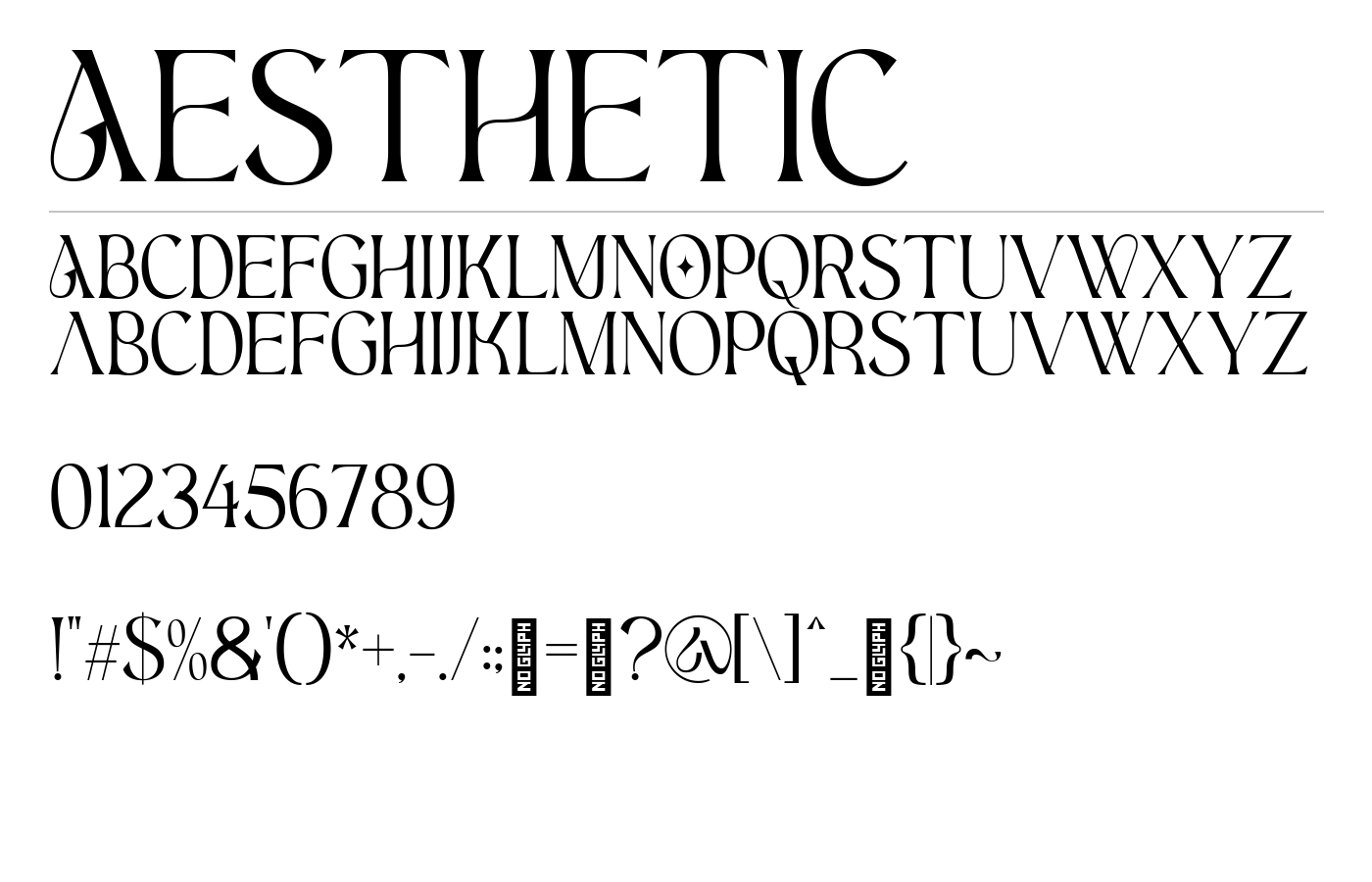
Aesthetic Font is a high-contrast serif typeface with elegant, thin serifs and a refined, modern look. Its narrow letterforms and unique, artistic details like the stylized Q tail and decorative glyphs lend it a sophisticated and fashionable character, ideal for luxury branding, editorial headlines, and upscale design projects. This font’s graceful style makes it perfect for creating a sleek yet distinctive impression wherever a sense of class and creativity is desired.
Aesthetic Font
About Aesthetic Font
| Font family | Aesthetic Font |
| Designer | Sigit Dwipa Raharjo |